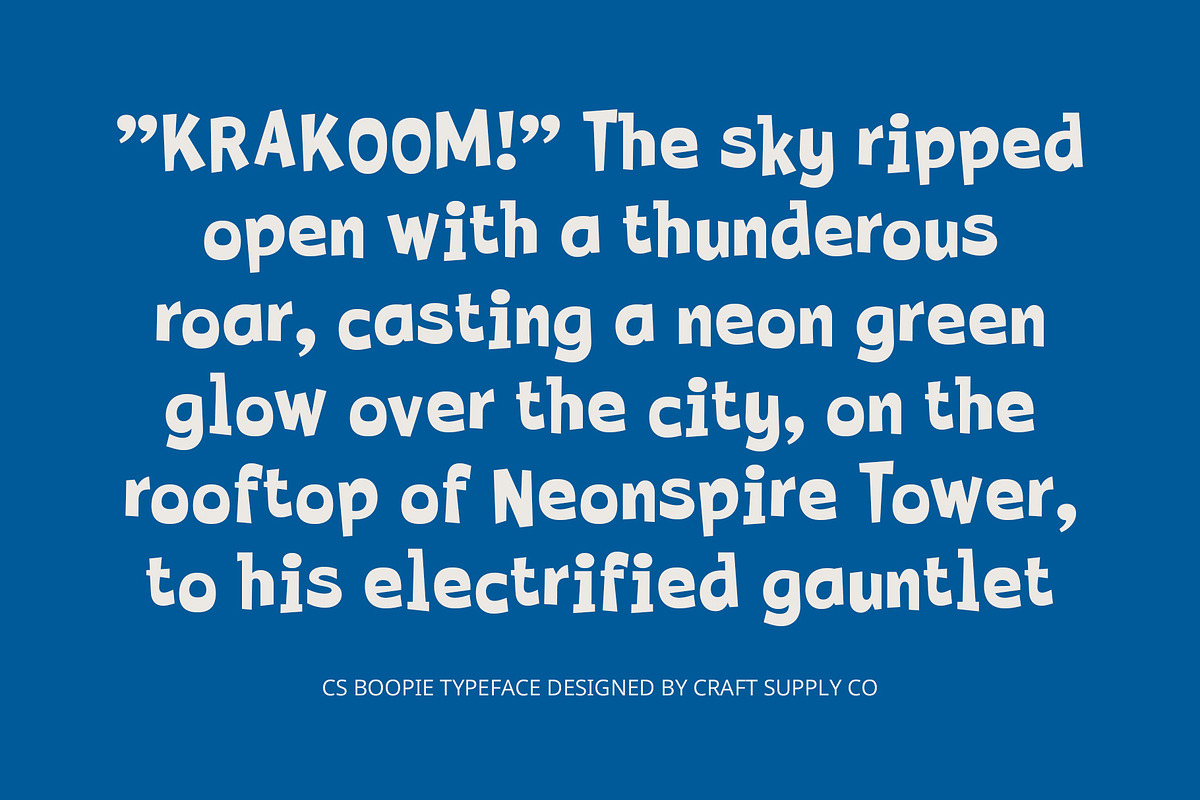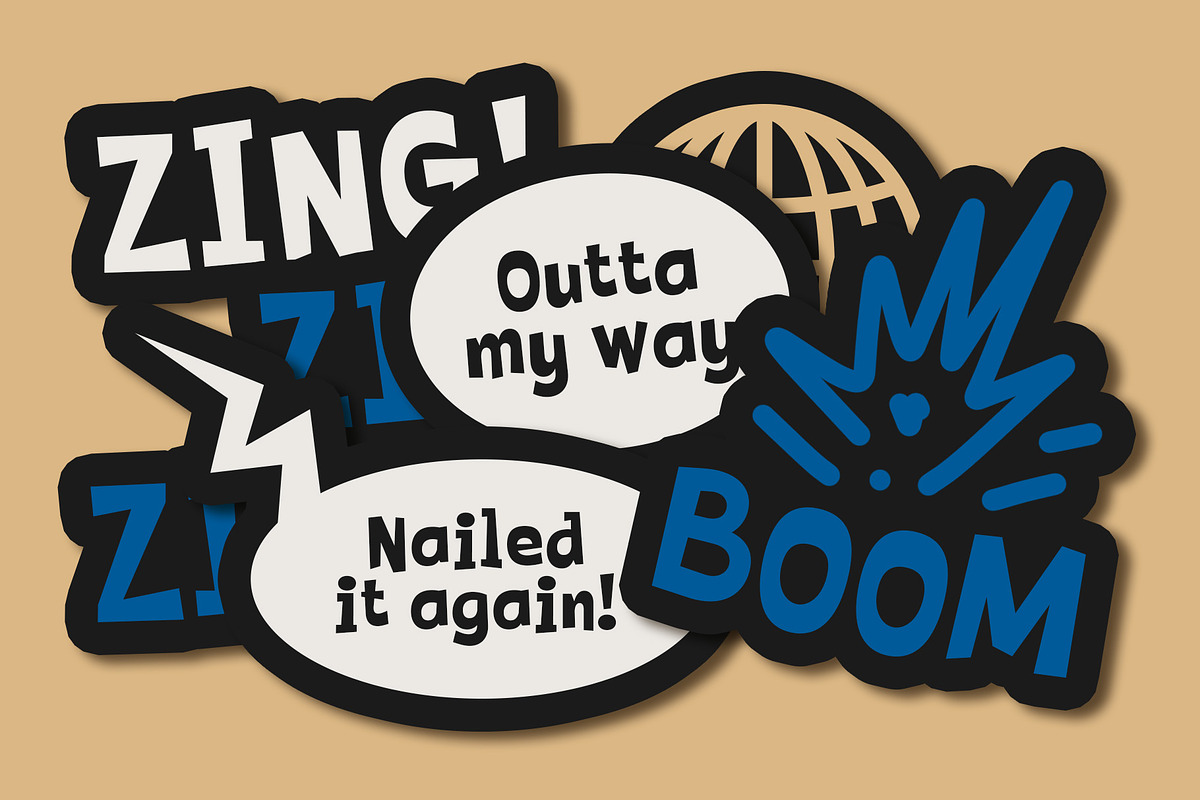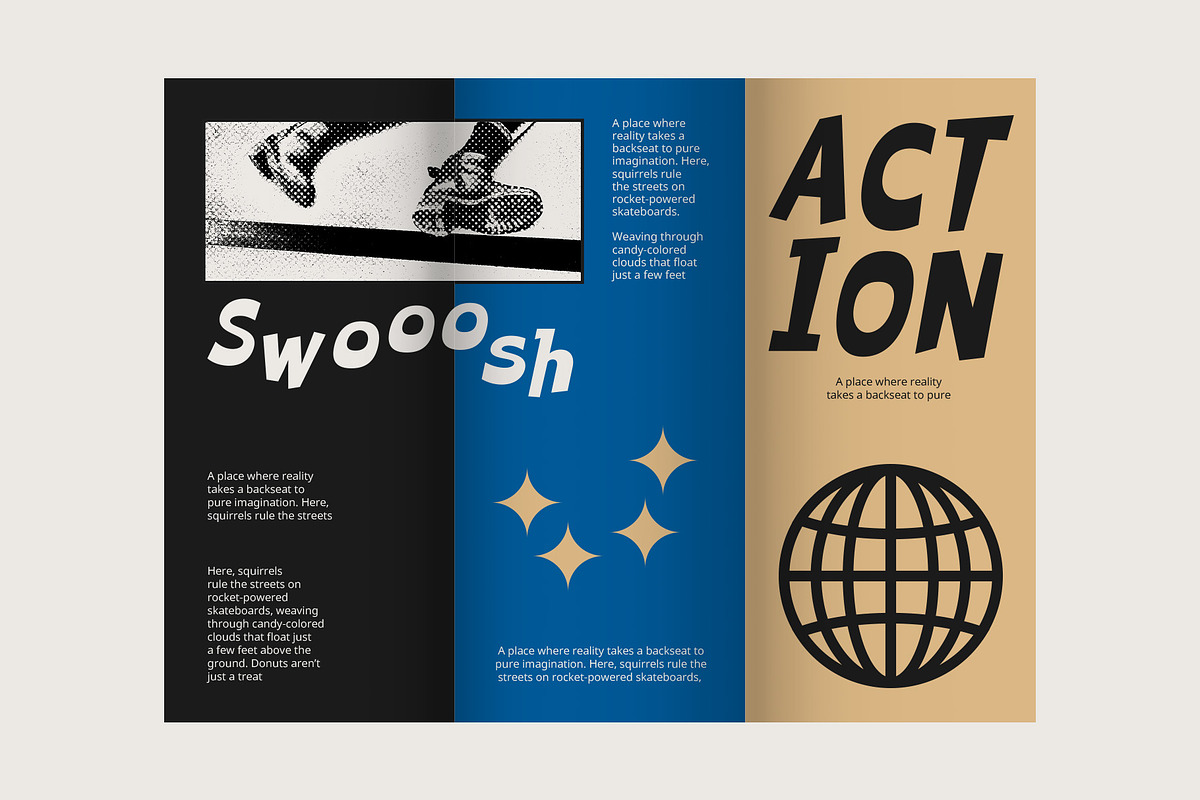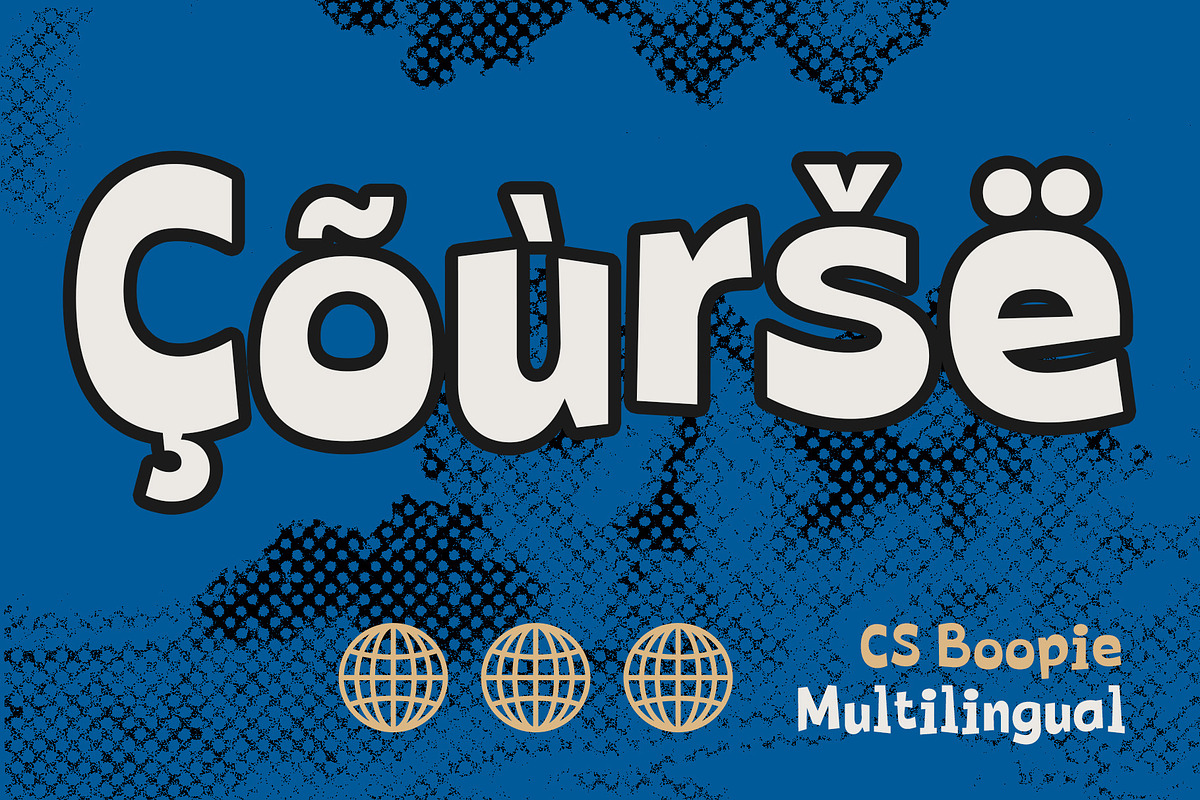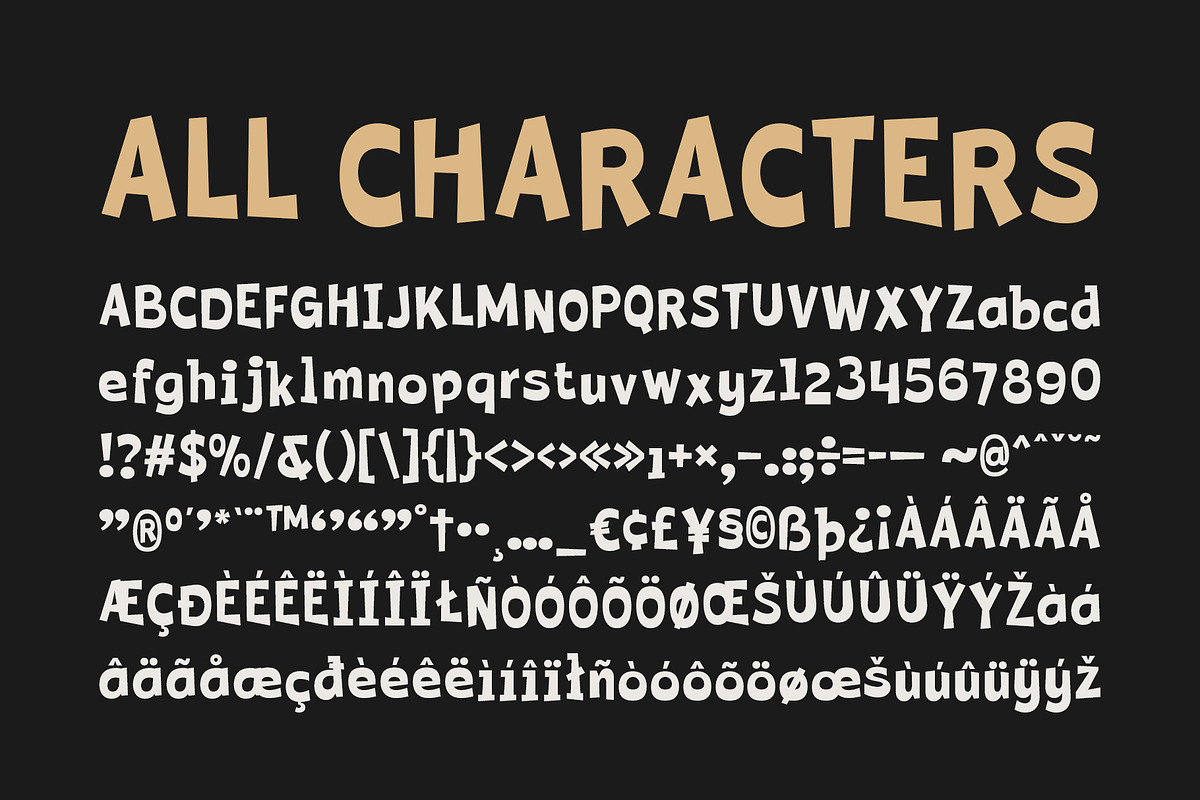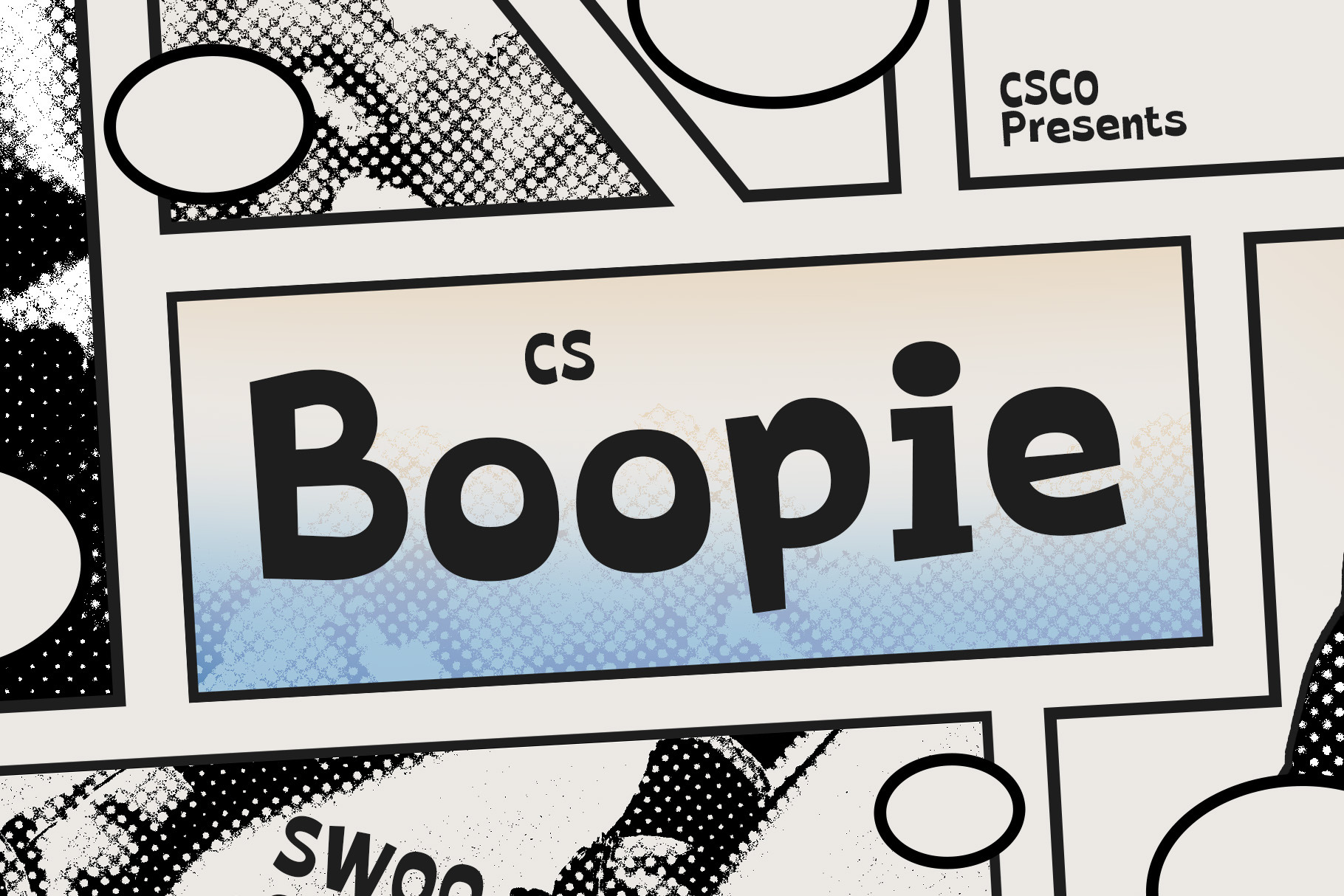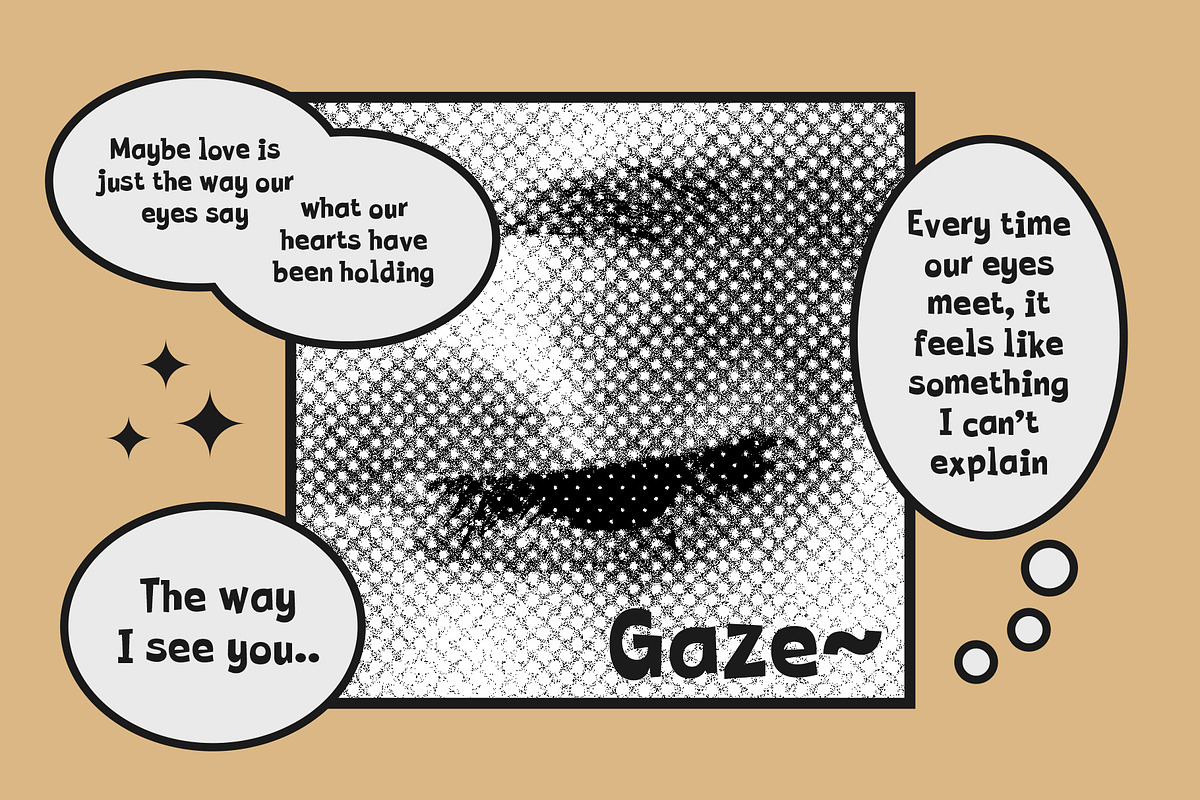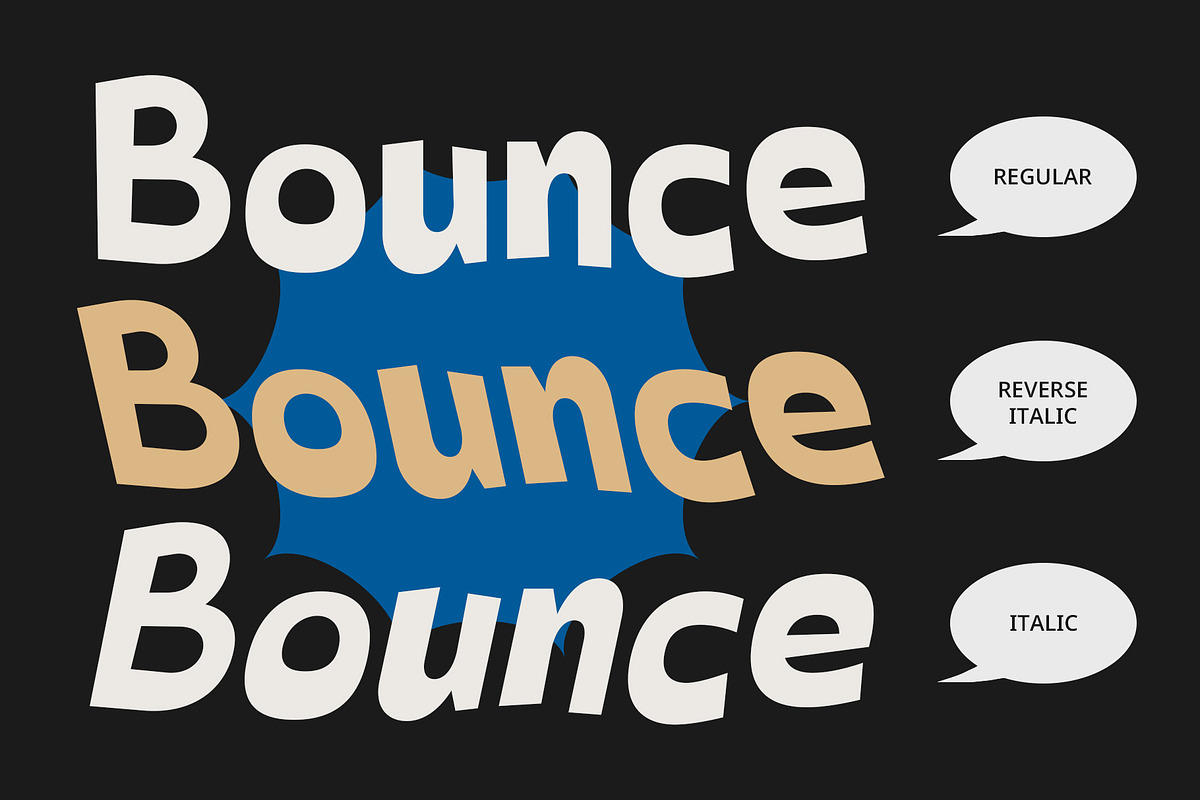
CS Boopie – Fun Font
CS Boopie – Fun & Playful Display Font
Bold, Playful, and Expressive CS Boopie is a bold display font that brings a cheerful and funky vibe to any design. Its energetic, thick letterforms combine rounded and curved shapes that offer a friendly, inviting feel. The playful nature of the font makes it ideal for projects that demand creativity, excitement, and a relaxed, fun atmosphere. It exudes personality with its thick, bold letters, ensuring that your message stands out in a lighthearted and expressive way.
Perfect for Fun and Engaging Designs The relaxed yet lively design of CS Boopie makes it perfect for branding, event posters, and marketing campaigns that want to capture attention with an engaging tone. Whether you’re creating fun logos, advertising materials, or visuals for playful events, this font’s energetic style will deliver a positive, exciting impression. The strong, rounded forms evoke feelings of joy and warmth.
Add Depth and Dynamism with Additional Effects Enhance the fun and playful nature of CS Boopie by incorporating effects like outlines or shadows to add depth and visual interest. These elements will further highlight the font’s expressive quality, giving your design an extra touch of dynamism and creativity. Its versatility makes it perfect for designs ranging from posters to digital content, ensuring that your work feels lively and entertaining.
- CS Boopie Regular
- CS Boopie Italic
- CS Boopie Reverse Italic